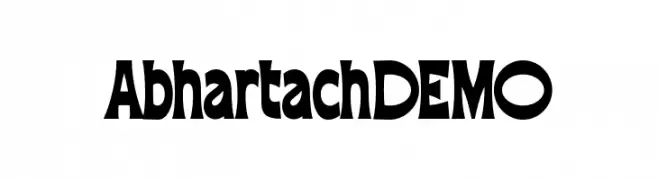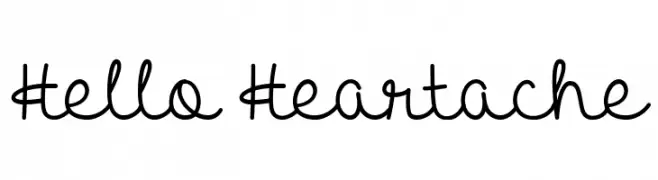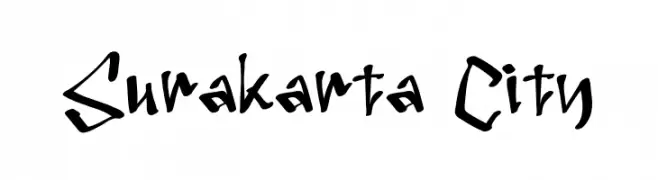
A playful, handwritten script font with a whimsical and casual style.
A bold and dynamic font with thick strokes and unique curves, perfect for creative projects.
A bold, dynamic font with exaggerated curves and angles, perfect for eye-catching designs.
An artistic and edgy font with a blend of modern and traditional calligraphy elements.
Decorative handwritten script font.
A modern sans-serif font with an italic slant, offering a dynamic and professional look.
A bold, italicized font with a strong and dynamic presence.
A clean and modern sans-serif font with geometric letterforms.
A bold, clean sans-serif font with geometric shapes and uniform strokes.